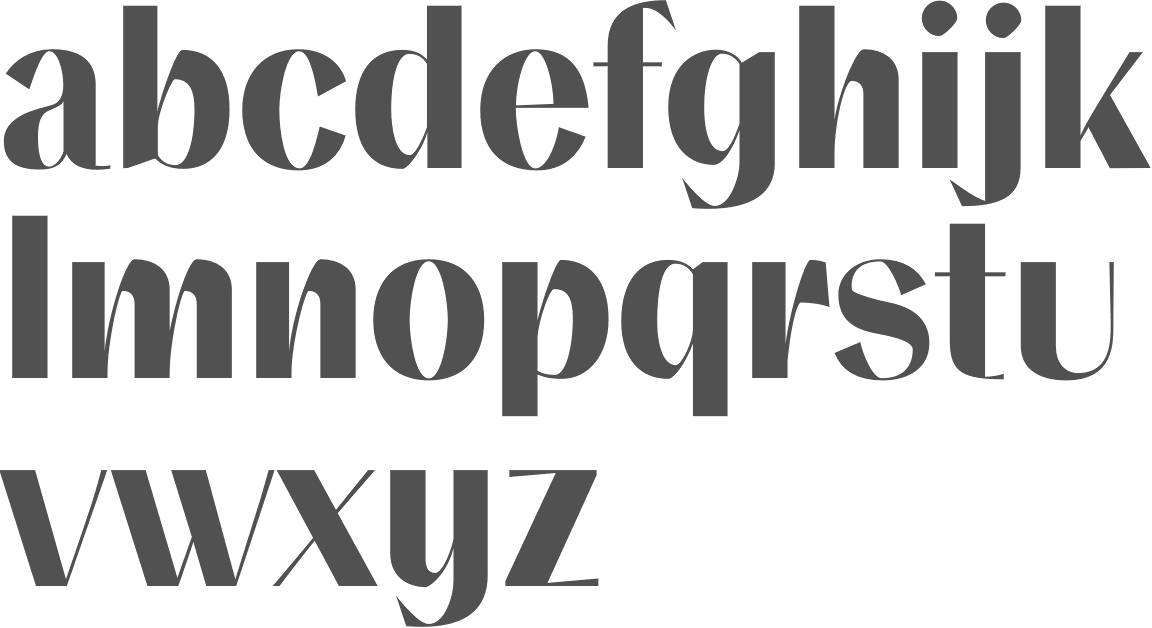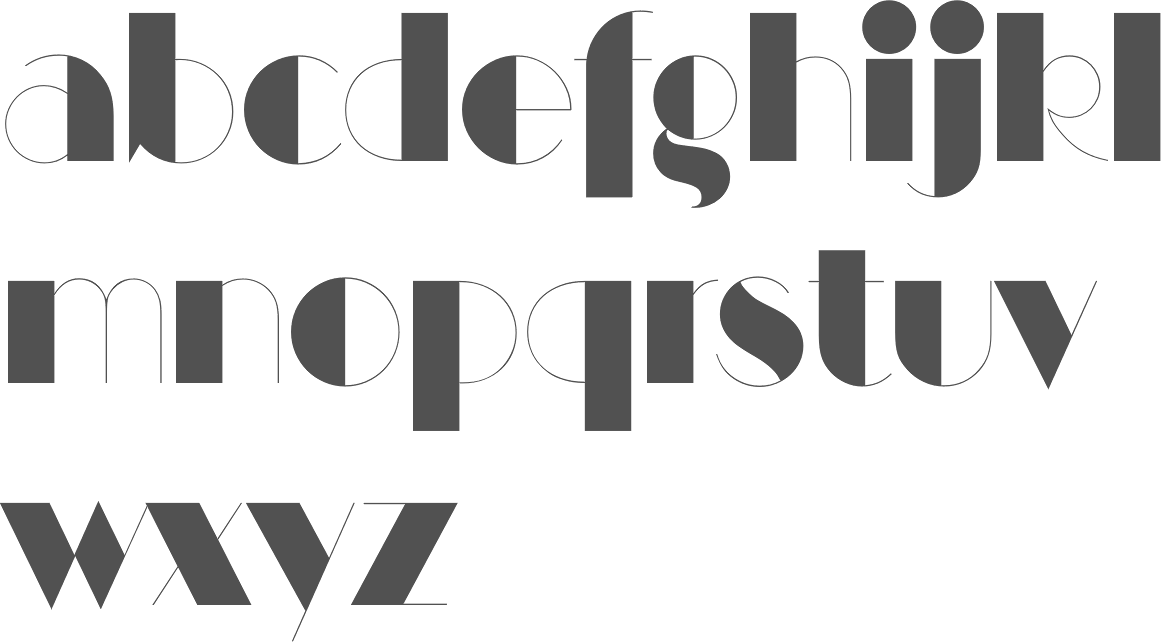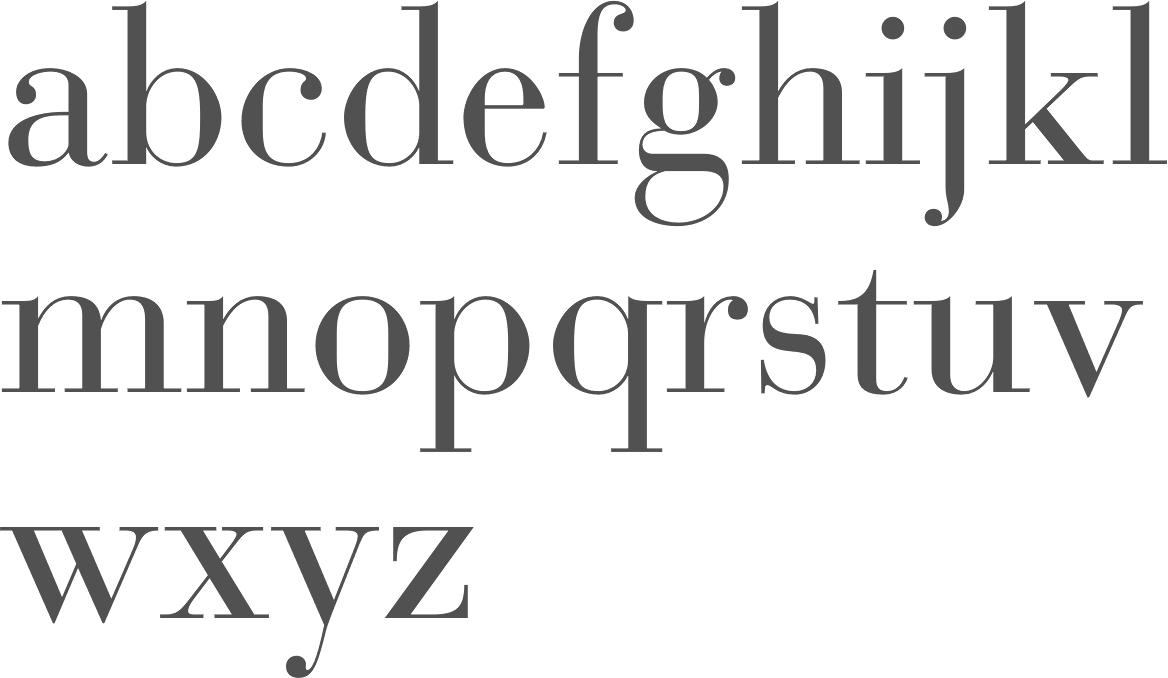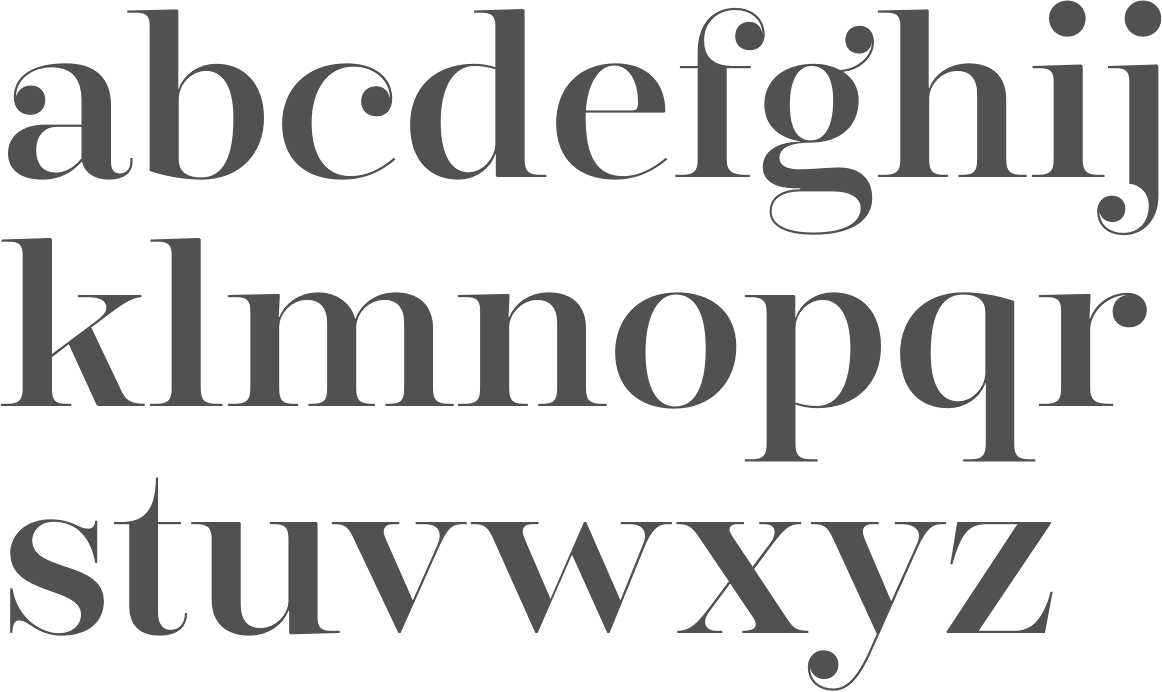
If you want to create professional printout, you should consider a commercial font. A monolinear typeface has low stroke contrast, and is the opposite of a high contrast face. Click to find the best 90 free fonts in the high contrast style.
In outlook 2003, choose view > arrange by > current view > customize current view. Introducing haboro contrast font family! 50 professional reverse contrast fonts to download.
If you are seeing this message, you probably have an ad blocker turned on. Classics (baskerville, futura, garamond) alongside hot new fonts (brice, moneta,novera). Layouts you create will jump out from the page and screen with this collection of 10 dynamic typefaces.
The idea for the project tt tsars was born after a small study of the historical development of the cyrillic type and is also based on shchitsgal’s book russian civil type. The quick brown fox jumps over the lazy dog. What is the haboro contrast™ font?